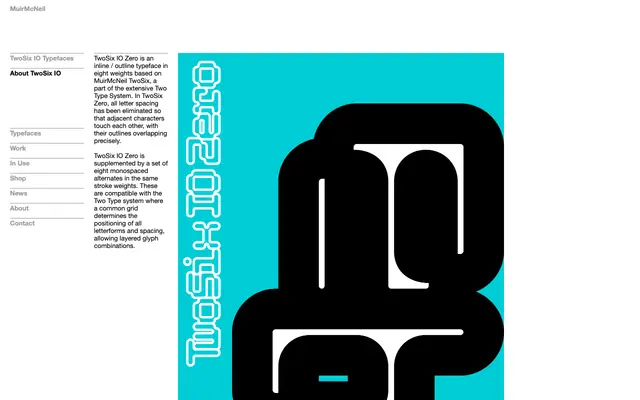
TwoSix IO Zero
An inline/outline display typeface in eight weights derived from MuirMcNeil's TwoSix system, with zero letter spacing so characters touch and overlap at their outlines.
Part of MuirMcNeil's Two Type System, TwoSix IO Zero eliminates all letter spacing so that adjacent glyphs touch and their outlines overlap with precision, producing a dense, interlocking texture at any weight. Eight stroke weights are available alongside a set of eight monospaced alternates that share the same underlying grid, enabling layered glyph combinations across the broader Two Type System. The monospaced alternates extend its utility into structured, grid-locked compositions where consistent glyph widths are required.
An inline/outline typeface built on a strict modular grid system with zero letter spacing, causing characters to touch and overlap; its layering logic and systematic construction place it firmly in the display category with a modular subcategory.